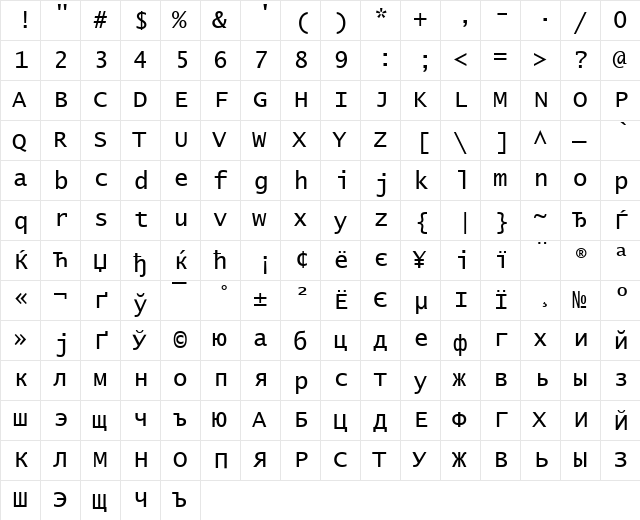
Lucida Console KOI8 Regular
Design Context for Lucida Console KOI8 Typeface
Lucida Console KOI8 is a composed and adaptable typeface that performs quietly and consistently across a wide range of design contexts.